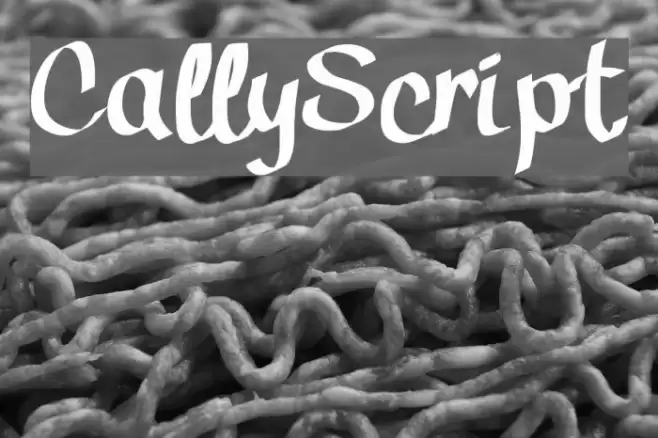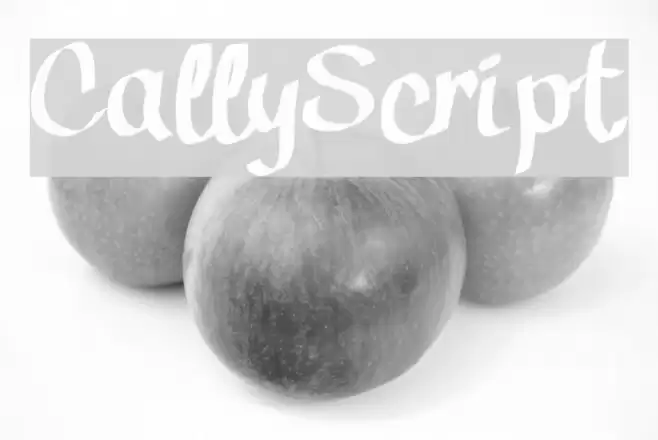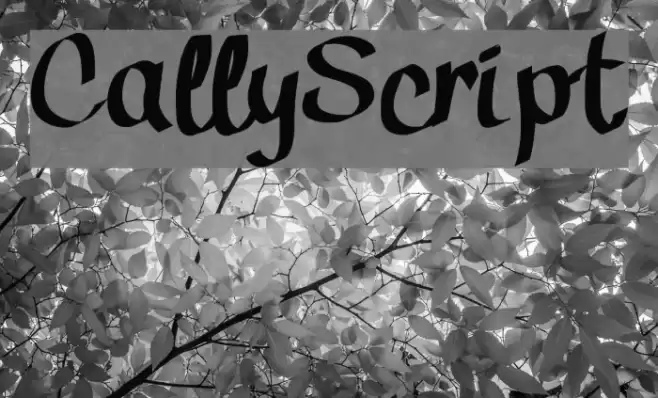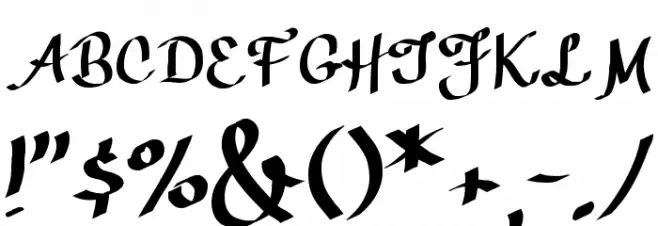
CallyScript Font
CallyScript Description
This font features a bold and expressive style with a calligraphic flair, characterized by its flowing and dynamic strokes. The uppercase letters exhibit a strong presence with sharp, angular serifs, while the lowercase letters maintain a consistent rhythm with smooth curves and elegant loops. The numbers and special characters are designed to complement the overall aesthetic, offering a cohesive look across all elements. The font's high contrast between thick and thin strokes adds to its dramatic appearance, making it suitable for impactful designs.
A bold, calligraphic font with high contrast and expressive strokes from Uncategorized fonts.
- Proposed Projects: Ideal for branding, logos, invitations, and decorative headlines.
- Use Case: Logos, Headlines, Invitations